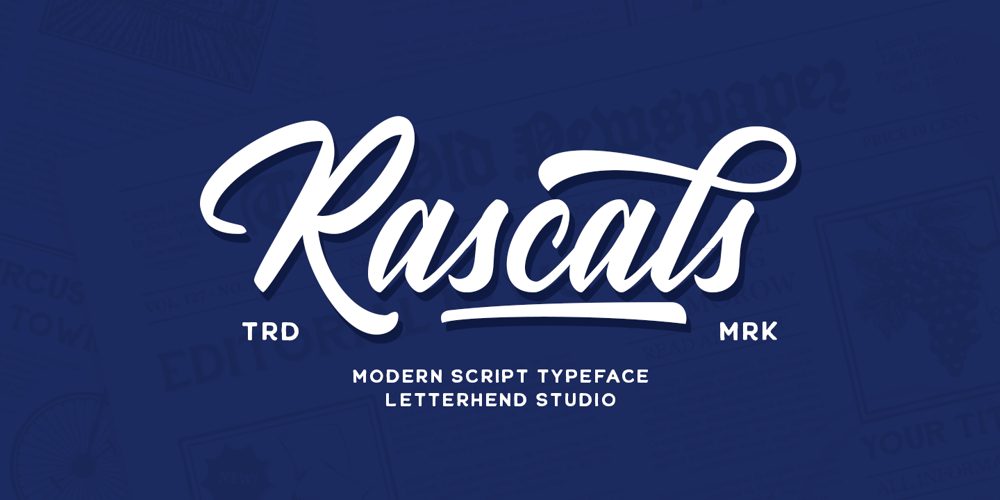
Rascals Font Family was designed by Hendry Juanda and published by Letterhend. Rascals contains 3 styles and family package options. Rascals is a script typeface with vintage and rustic look! It works perfectly for those who need a typeface for headlines, logotype, apparel, invitation, branding, packaging, advertising etc. This typeface is comes in uppercase, lowercase, punctuation, symbols, numerals, stylistic set alternate, ligatures, and also contains multilingual characters.